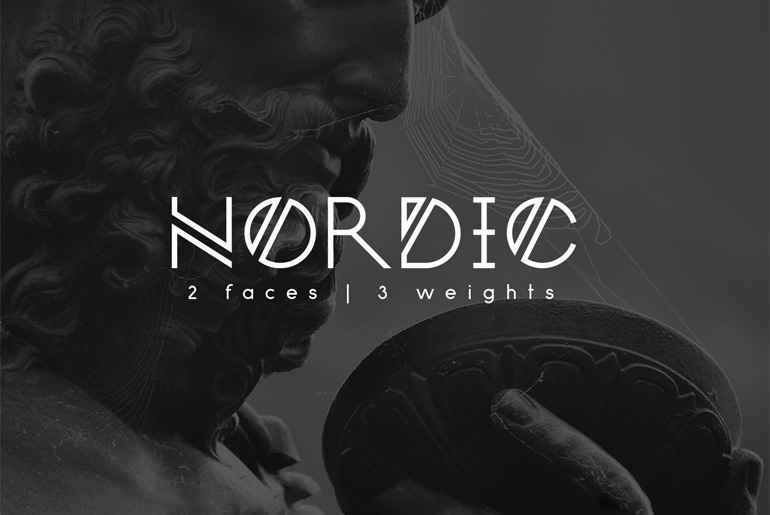
Nordic font is an exclusive modern font-family based on scandinavian runes and well-designed geometric forms created by
Yana Bereziner. This is what can fit in your every day’s design necessities. Nordic font has two versions and 3 weights in each one like light, regular and bold and has uppercase, numbers and basic punctuation.
It is perfect for greetings cards, invitation cards, logos, symbols, titles and posters and so on. You can use Nordic’s main version as supporting text. It’s another version is suitable for immense titles, captions and headlines. It looks good in both small and big.